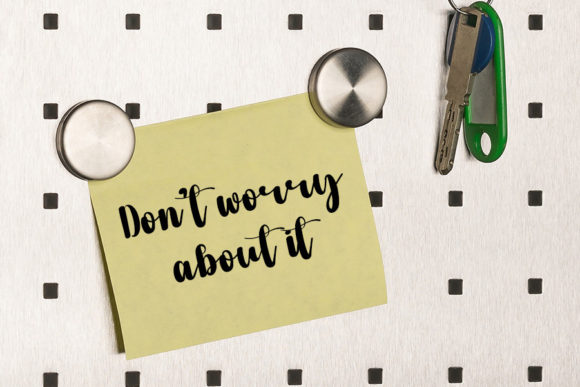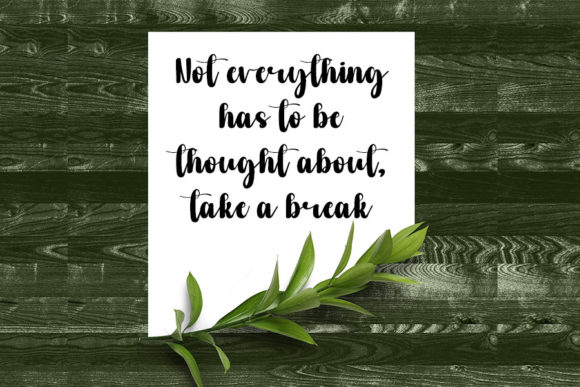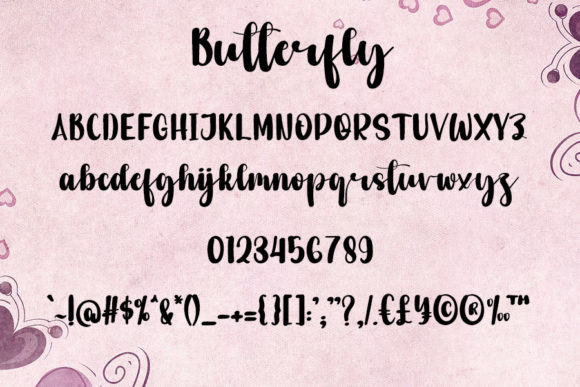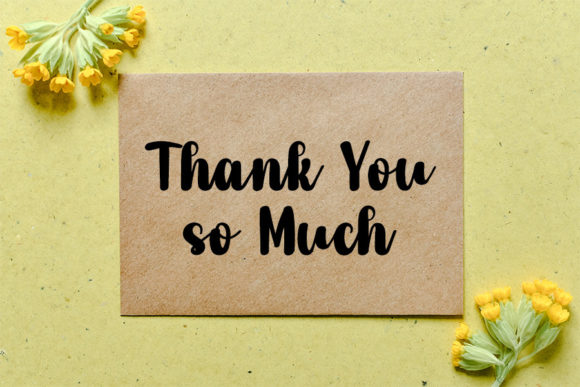
Unleash Your Creativity with the Delicate Charm of Butterfly Font
Remember the thrill of flipping through a vintage magazine and stumbling upon a beautifully designed cover that caught your eye? The intricate typography, the elegant curves, and the whimsical feel all combined to leave a lasting impression. That’s the magic of great design, and it’s exactly what the Butterfly Font aims to capture.
This lovely handwritten font is perfect for designers who want to add a touch of elegance and sophistication to their work. Whether you’re creating product packaging, branding projects, or magazine covers, the Butterfly Font is sure to make your design stand out from the crowd.
As a valuable addition to any designer’s toolkit, the Butterfly Font offers a unique blend of style and versatility that’s sure to inspire creativity and take your designs to the next level.
Butterfly Font Key Features
- Unique Characteristics: The font features a unique, hand-drawn design with subtle flourishes and organic shapes, giving it a whimsical and elegant feel.
Review: Butterfly Font
✨ I have to say, I’m quite impressed with the overall aesthetic of the Butterfly Font. It’s a beautiful, whimsical script that can add a touch of elegance to any design project. The flowing curves and delicate lines give it a romantic feel that’s perfect for wedding invitations, children’s books, or any other project that needs a touch of sweetness.
One of the things I love about the Butterfly Font is its versatility. It comes in a range of weights and styles, from light and airy to bold and dramatic. This makes it easy to use in a variety of contexts, from display headings to body text.
- ✨ Elegant and whimsical design that adds a touch of romance to any project.
- ✨ Versatile and comes in a range of weights and styles.
- ✨ Perfect for display headings and body text.
- ⚠️ May be difficult to read in small sizes or at a distance.
- ⚠️ Can be overwhelming if used too extensively in a design.
- ⚠️ May not be suitable for projects that require a more serious or formal tone.
Overall, I’m really impressed with the Butterfly Font. It’s a beautiful and versatile script that can add a touch of magic to any design project. While it may have some limitations, I think it’s definitely worth considering for any project that needs a little bit of whimsy and romance.
Tips for Getting the Most Out of Butterfly Font
To get the most out of the Butterfly Font, consider the following tips:
- Use the font for titles and headings to add visual interest.
- Pair the font with bold or italic fonts for contrast.
The Butterfly Font is ideal for:
- Children’s books and educational materials.